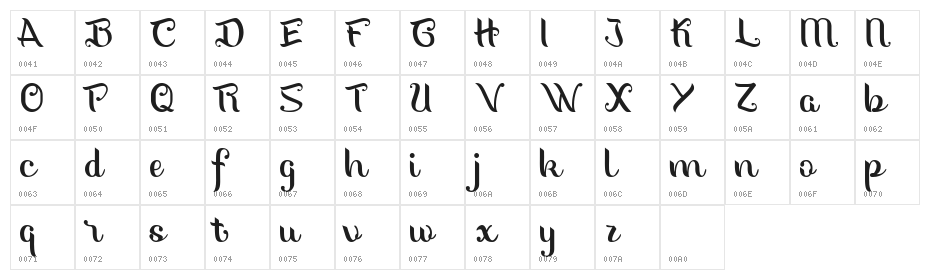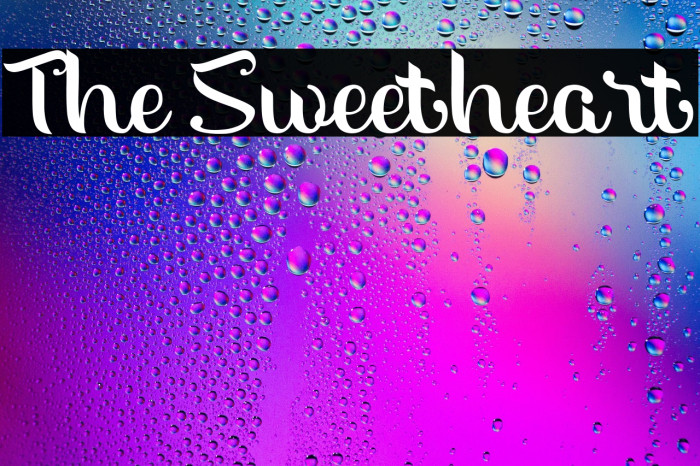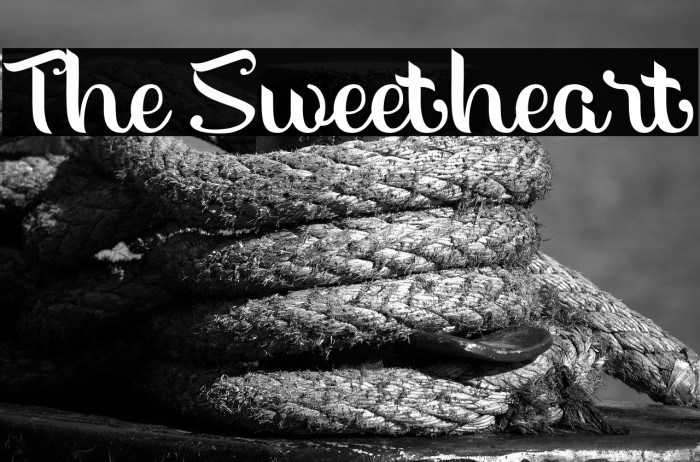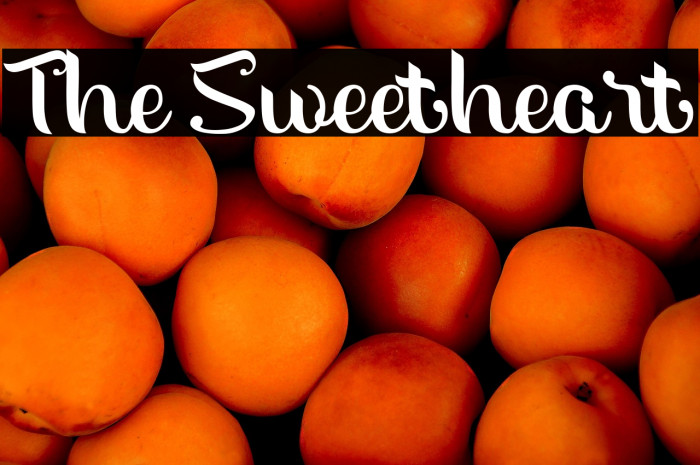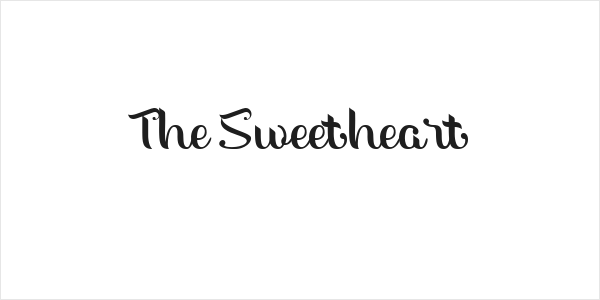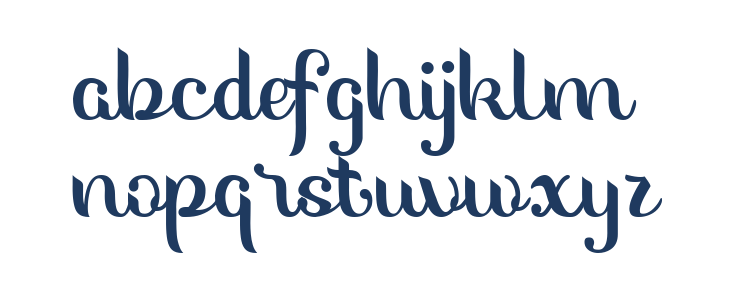
The Sweetheart Font
The Sweetheart Description
This font features a whimsical and decorative style, characterized by its flowing, cursive-like strokes and playful flourishes. The uppercase letters are bold and ornate, with unique embellishments that give each character a distinct personality. The lowercase letters maintain a consistent style, with smooth curves and elegant loops that enhance readability while adding a touch of charm. The numbers and special characters are designed to complement the overall aesthetic, making them suitable for creative and artistic projects. The font's design is both eye-catching and versatile, making it ideal for use in various design contexts.
| Proposed Projects | Ideal for wedding invitations, greeting cards, branding, and decorative signage. |